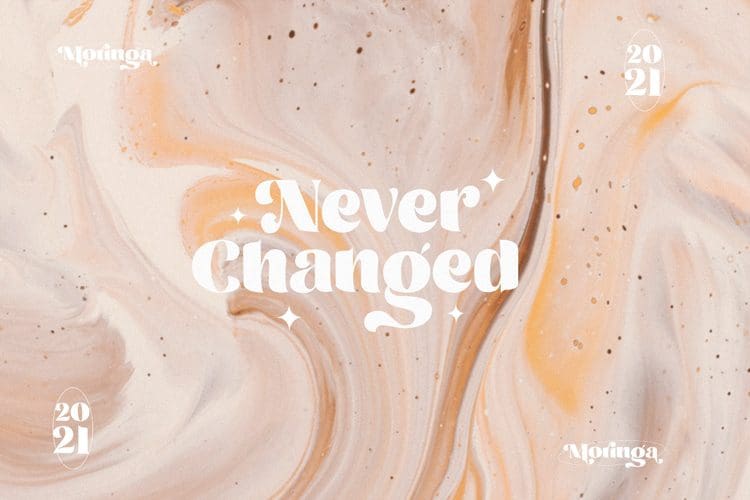
Moringa Display Font
Moringa is a Classy & Unique Display Font that is inspired by vintage and modern lettering. It features a unique character that you can use for any kind of project.